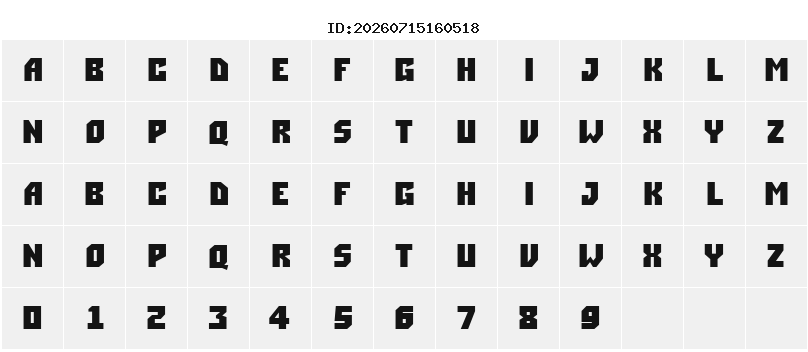
a_Simpler Preview
• Font Name: a_Simpler
• Designer: W.Chufarofsky & M.Slutsker
About a_Simpler.ttf
a_Simpler.ttf is a modern, elegant sans-serif font designed for ultimate readability and visual harmony. Perfect for branding, headlines, web design, and print materials.